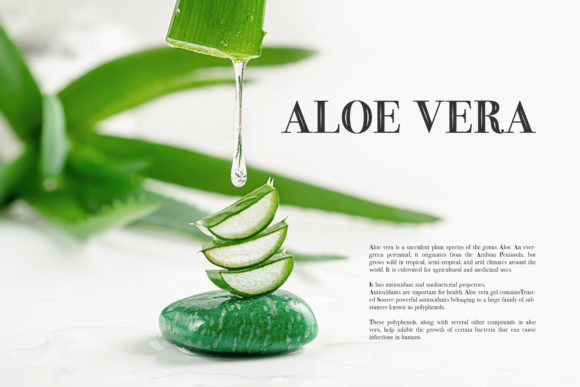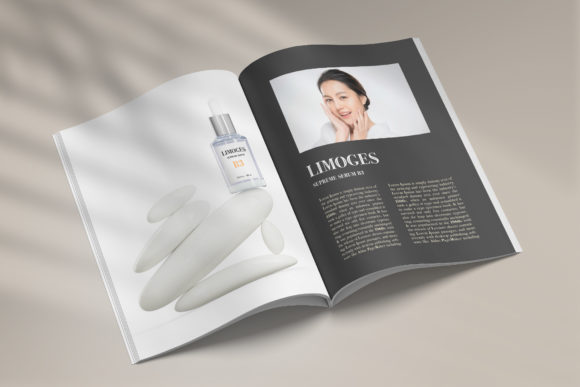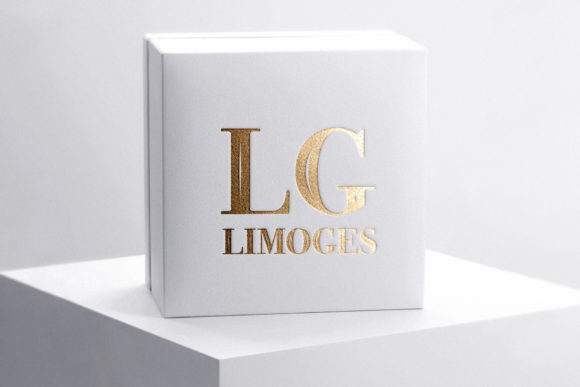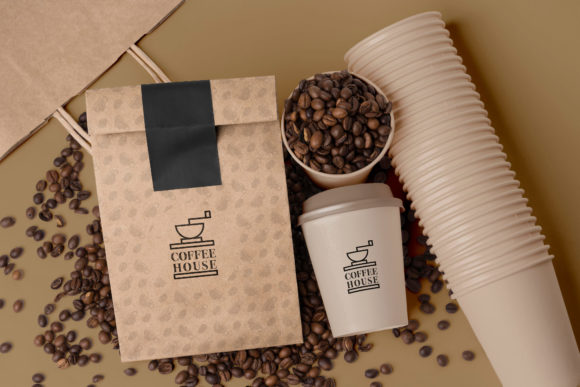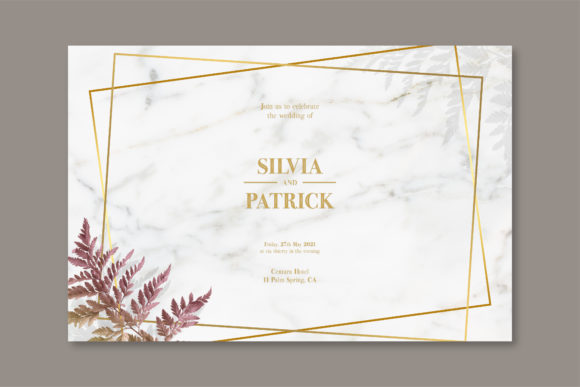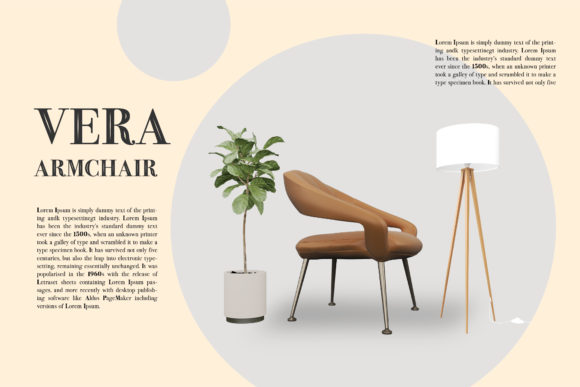
Introduction to Limoges Font Font
Fonts play a crucial role in design, and the Limoges Font font is a typeface that brings both character and versatility to any project. Whether you’re working on a branding project, a website, or a print design, the Limoges Font font offers a unique style that can elevate your work.
| 📌 Font Name | Limoges Font |
| 👤 Author | Koson.graphic |
Limoges is a cool, bold and authentic serif font.
It can be employed to various creations that require an elegant touch Add it confidently to your classy projects and notice how they come to life.
Key Features of Limoges Font Font
Why Choose Limoges Font Font?
The Limoges Font font is more than just a typeface – it’s a design tool that helps you communicate your message with style and clarity. Its unique character set and versatile design make it suitable for a wide range of applications, from elegant invitations to bold headlines.
With its carefully crafted letterforms and balanced proportions, the Limoges Font font ensures readability and visual appeal across all mediums.
What makes Limoges Font font special?
The Limoges Font font stands out with its unique design, exceptional readability, and versatility across various design applications.